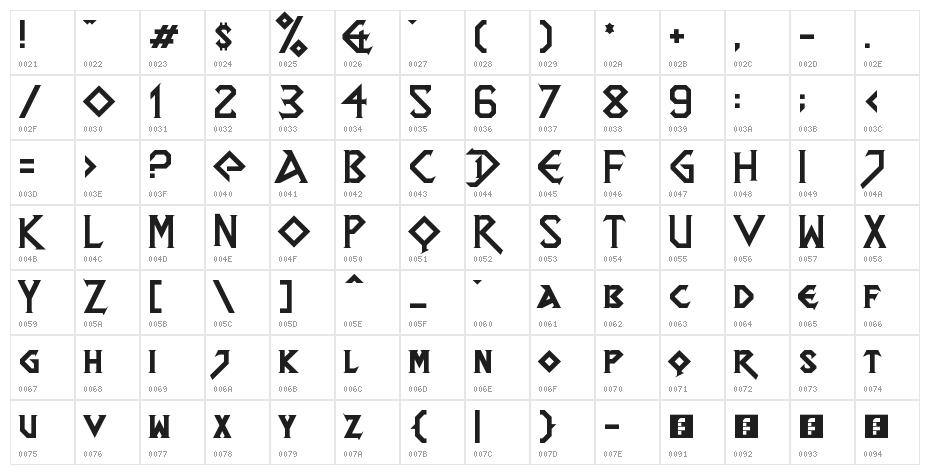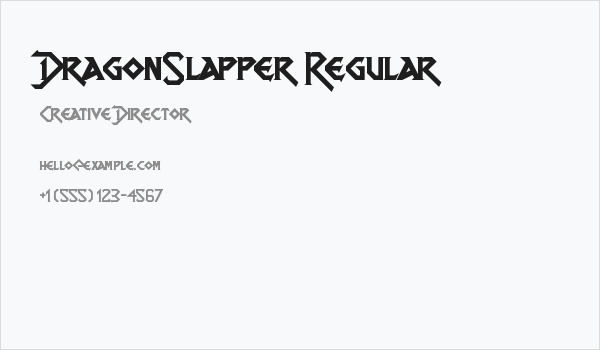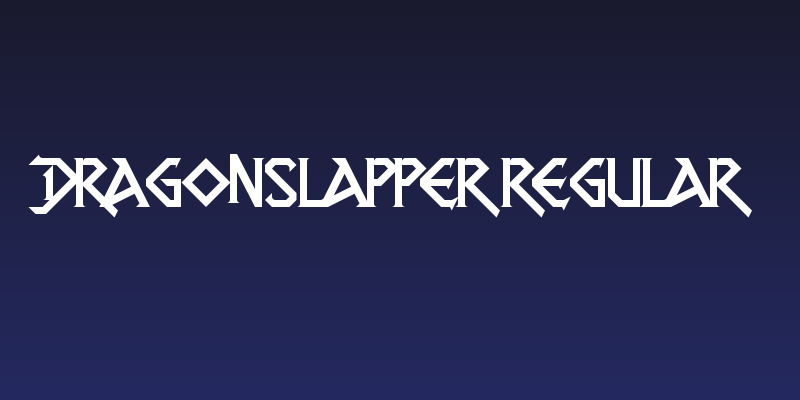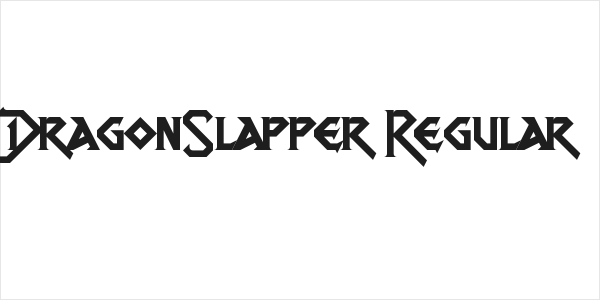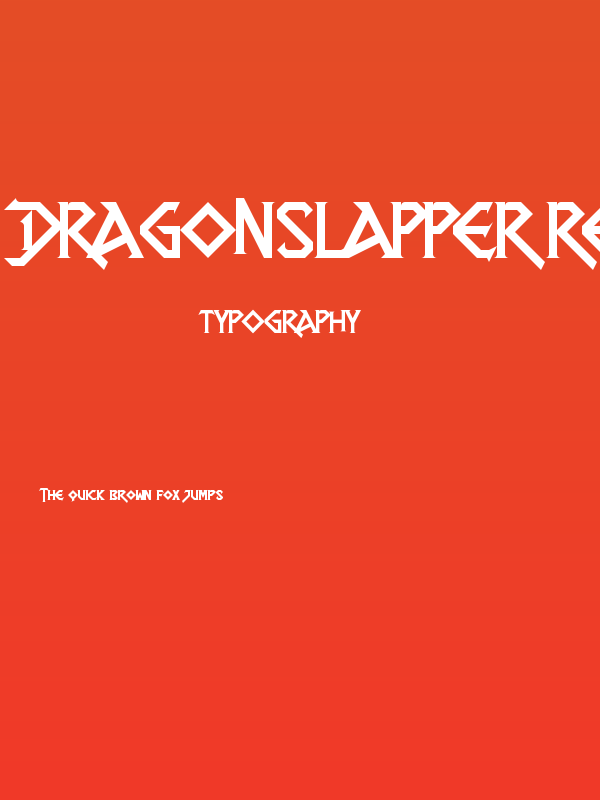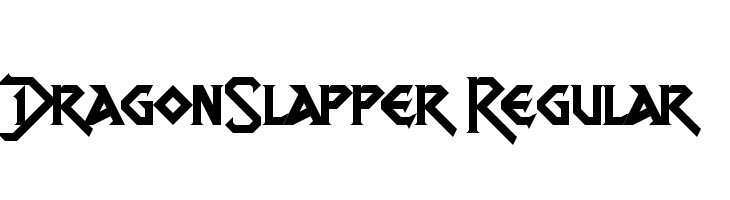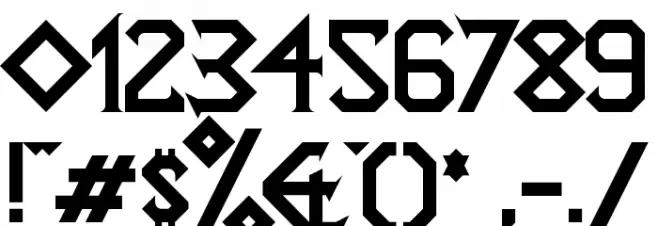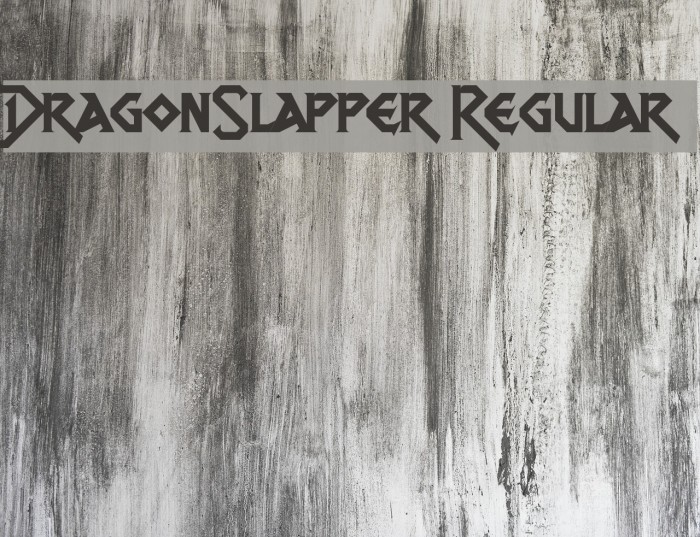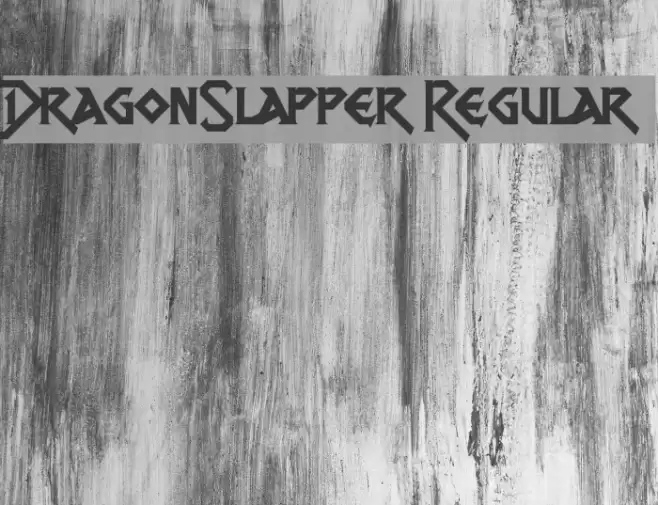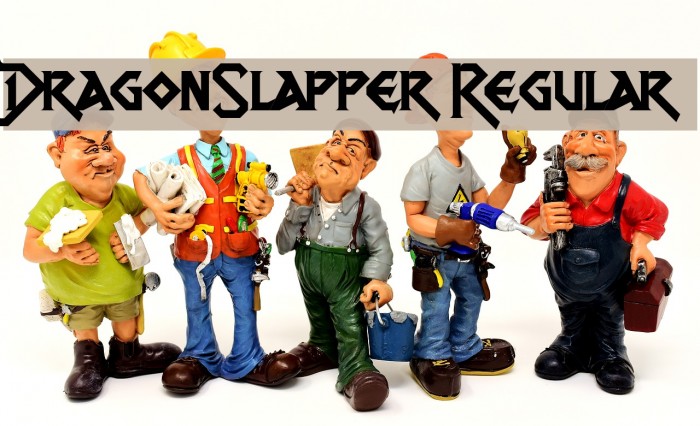
DragonSlapper Regular Font
| Vorgeschlagene Projekte | Ideal for fantasy-themed posters, video game titles, book covers, and branding that requires a dramatic flair. |